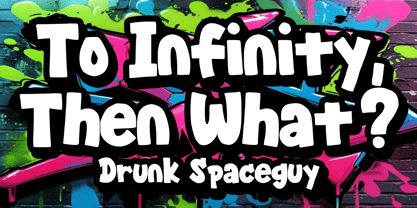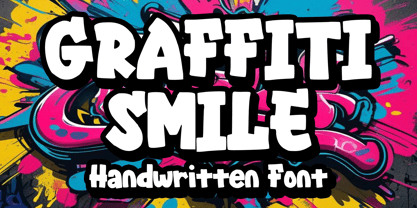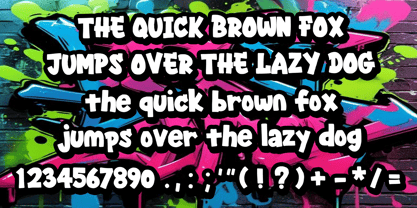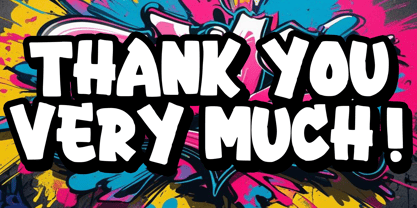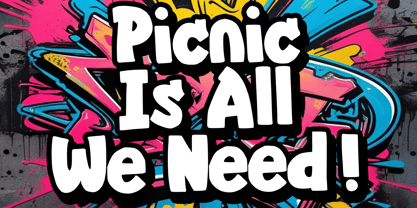
Graffiti Smile
by Mvmet
The Graffiti Smile Font Family was designed by Gabriel Valentinus and published by Mvmet. Graffiti Smile contains 1 styles. More about this family
Introducing Graffiti Smile, a vivacious fusion of bold street graffiti and playful comic-flavored artwork! This font invites you to take your designs to the next level with its standout expressive nature. Perfectly aligned for those seeking to imprint a lively, fun vibe to their line of clothing like t-shirts, book designs that pop, unique street art creations, and memorable greeting cards. Graffiti Smile also thrives when making eye-catching stickers, dynamic posters, and engaging banners. Dive into a creative adventure with Graffiti Smile and let your design tap into the exuberant world of fun, cheer, and bold style!
Designers: Gabriel Valentinus
Foundry: Mvmet